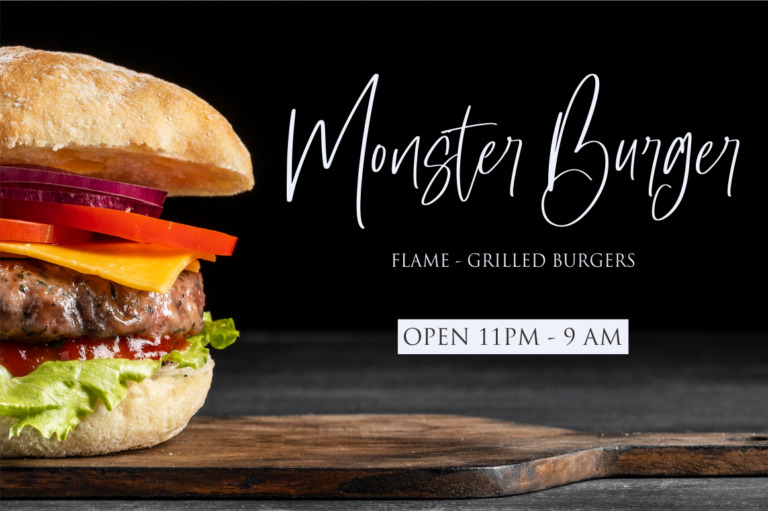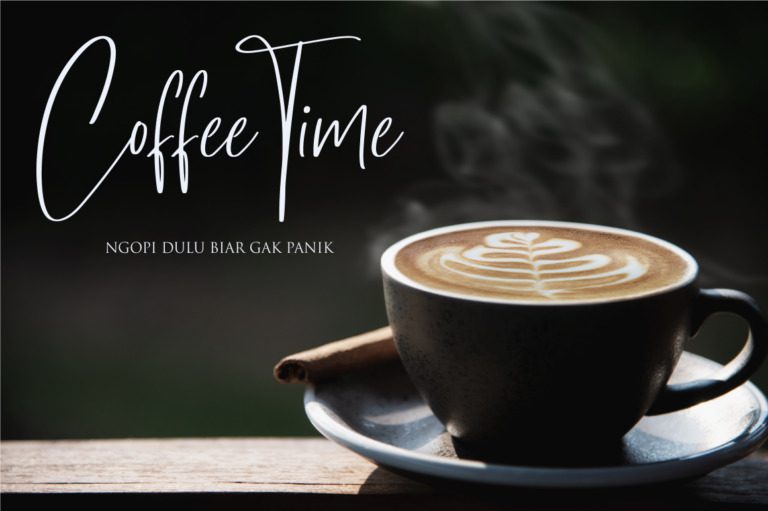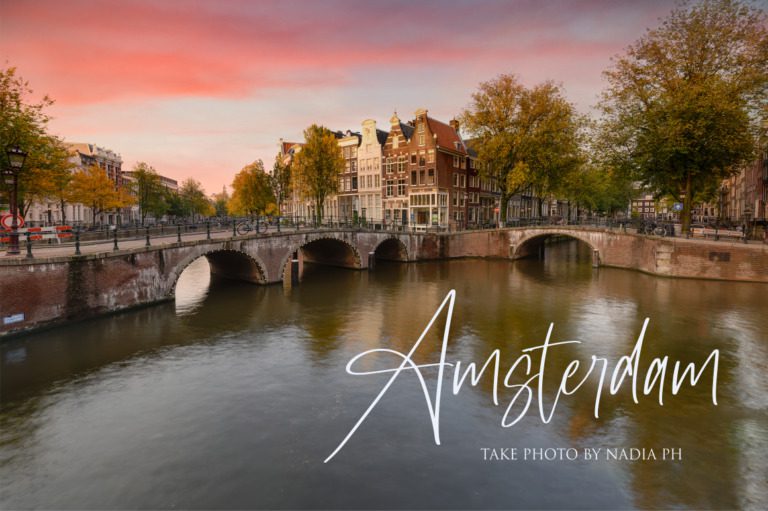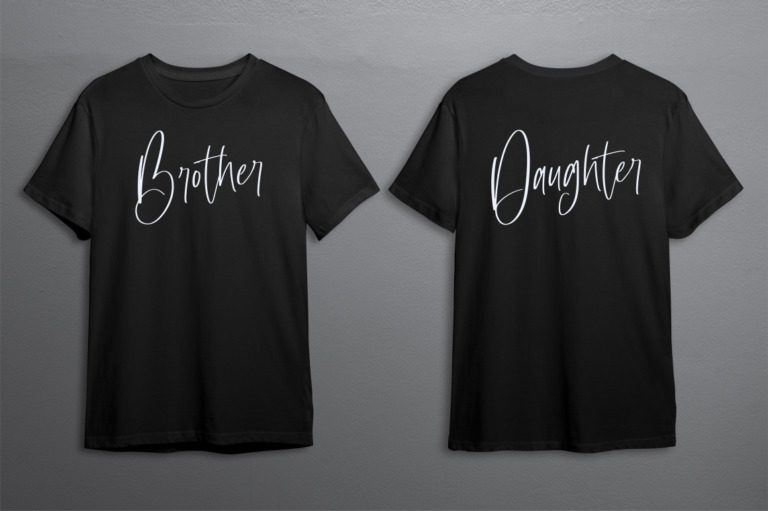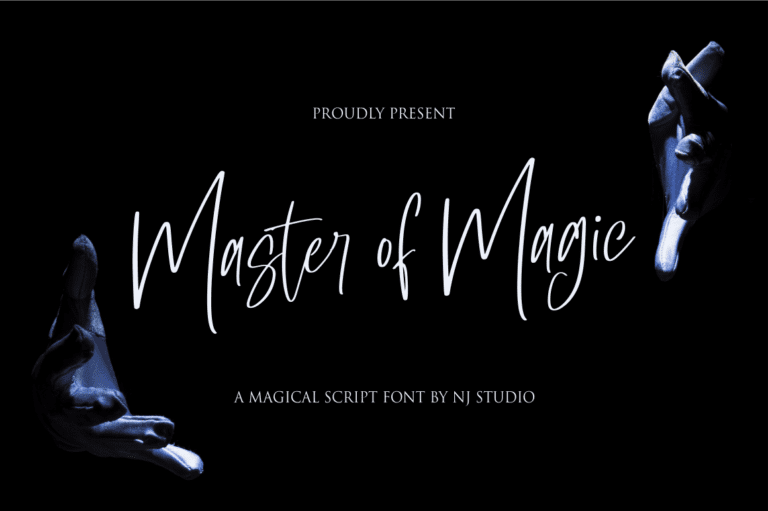
Master of Magic Font
Master of Magic is a bold and dramatic font that evokes a sense of mystery and enchantment. Its flowing curves and sharp angles create a sense of power and intrigue, making it perfect for fantasy-themed designs, book covers, and other magical projects. With its dark and mysterious aesthetic, Master of Magic is sure to captivate your audience.